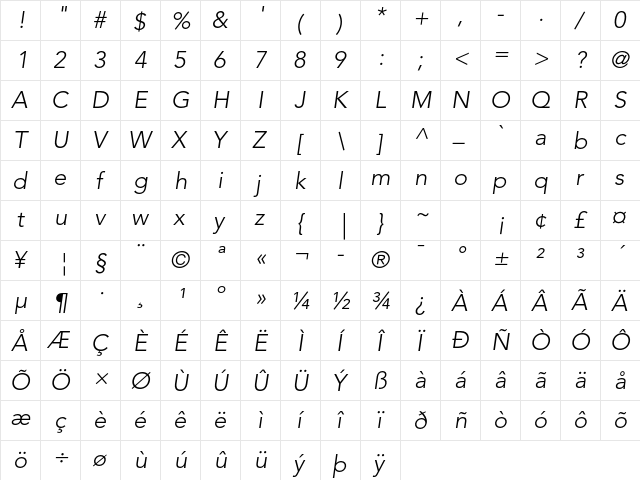
Avenir LT Std 35 Light Oblique
| Designer | Adrian Frutiger |
Design Context for Avenir LT Std Typeface
Avenir LT Std is a composed and adaptable typeface that performs quietly and consistently across a wide range of design contexts. The slanted form adds forward momentum and visual energy. The delicate stroke weight brings airiness and refinement to layouts.
Pro Tip: Use Avenir LT Std for emphasis, pull quotes, and subheadings where its slanted energy can add rhythm to the layout.